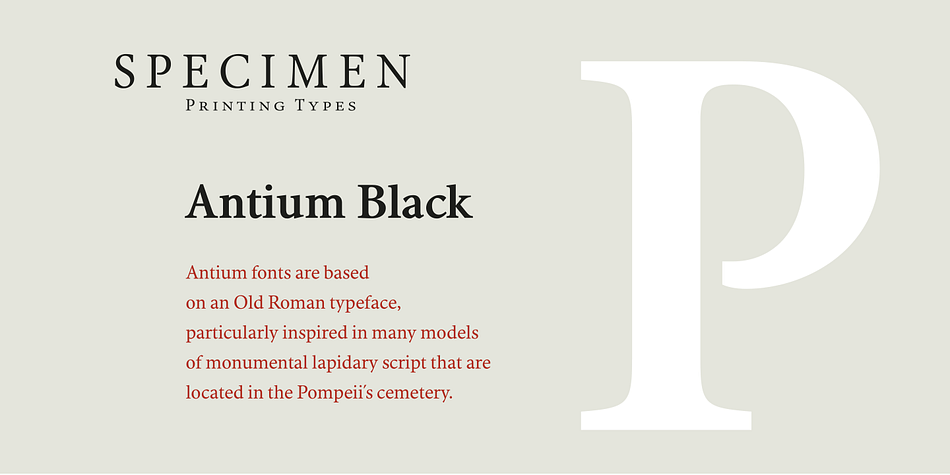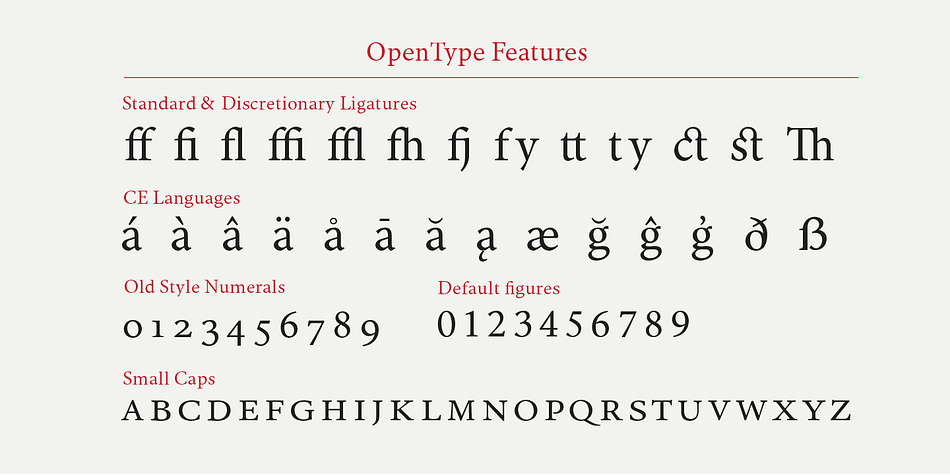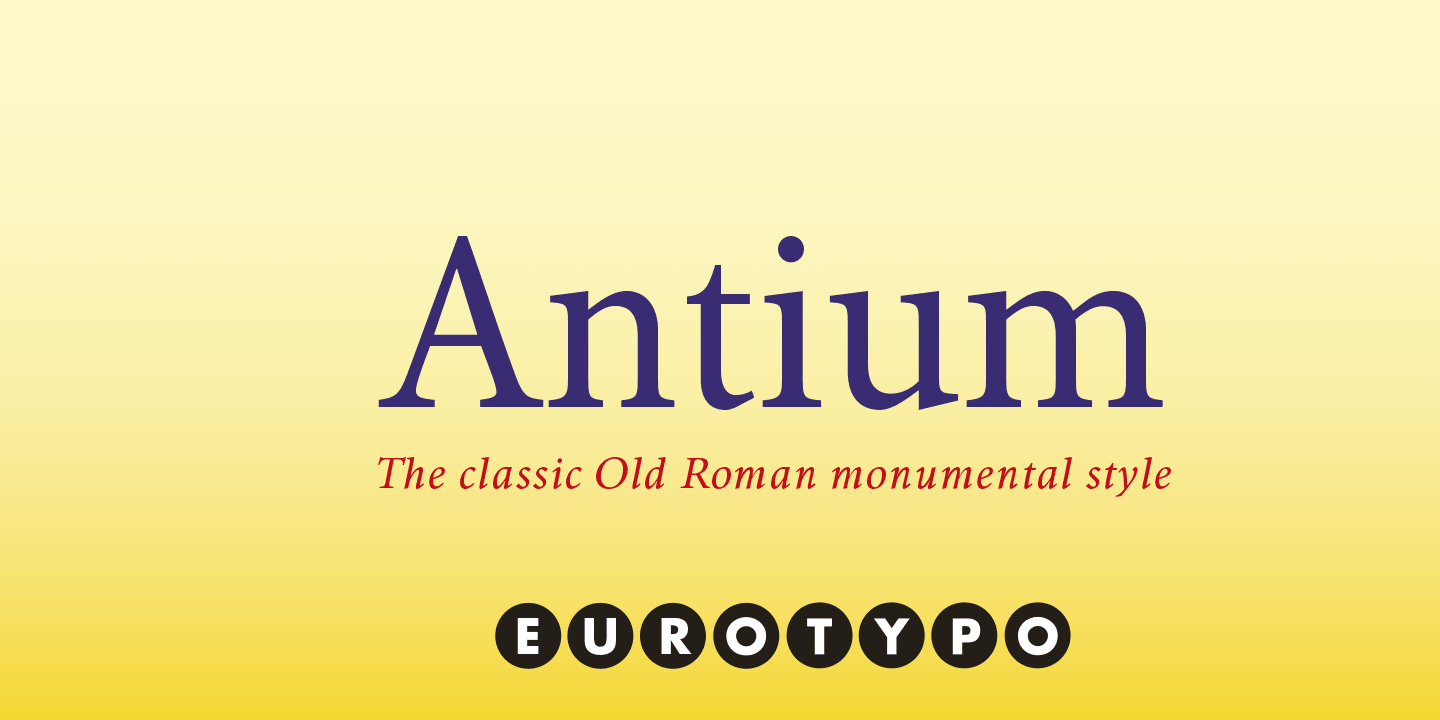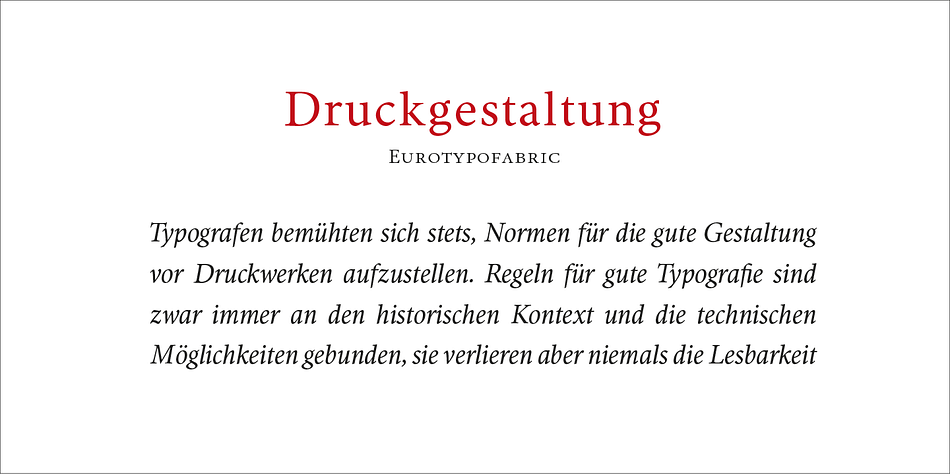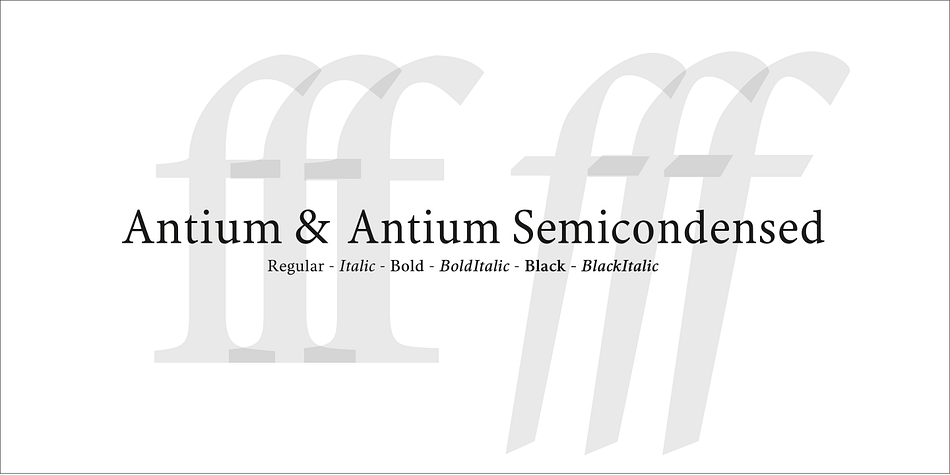
Designed by Olcar Alcaide, Antium is a serif font family. This typeface has twelve styles and was published by Eurotypo.
Antium fonts are based on an Old Roman typeface, particularly inspired in many models of monumental lapidary script located in the Pompeii’s cemetery.
One of the most peculiar features that define this font is its predominant height of “x” as well as to ascenders and descenders, actually their strokes are particulary shorts.
This font offers good legibility in small sizes, for use in editorial design, newsletters and printed material.
The strong personality of its glyphs is well suited to headlines.
Antinum (Anzio), formerly the capital of the Volscians until the Romans conquered it in 468 BC. Built on the Mediterranean coast near Rome. A legend attributes its foundation to a son of Ulysses and Circe. Caligula and Nero were born there.